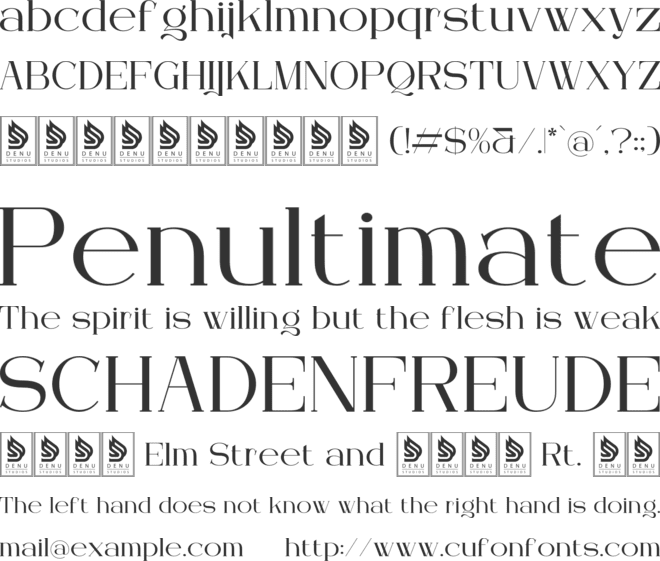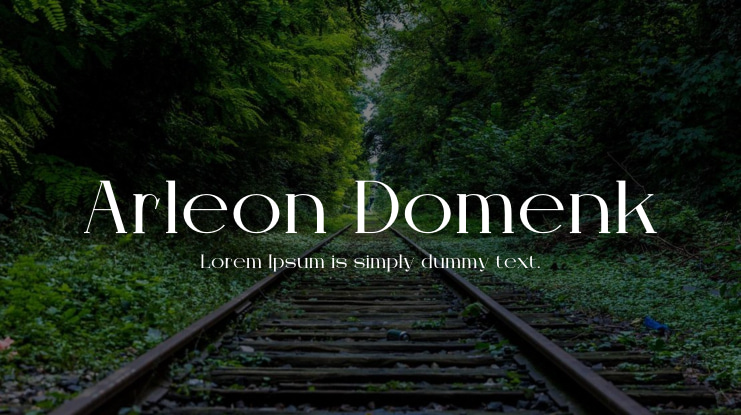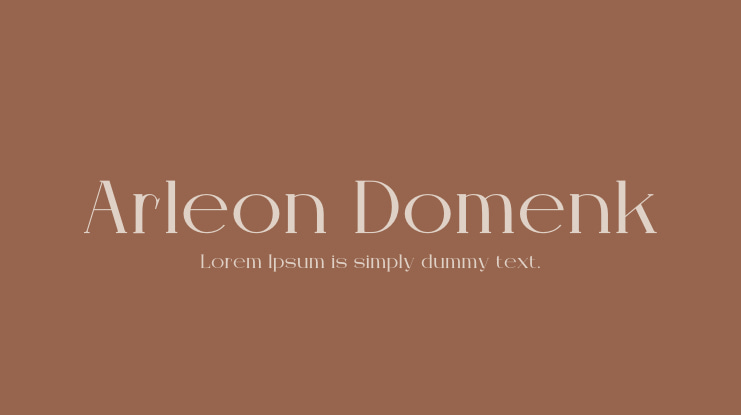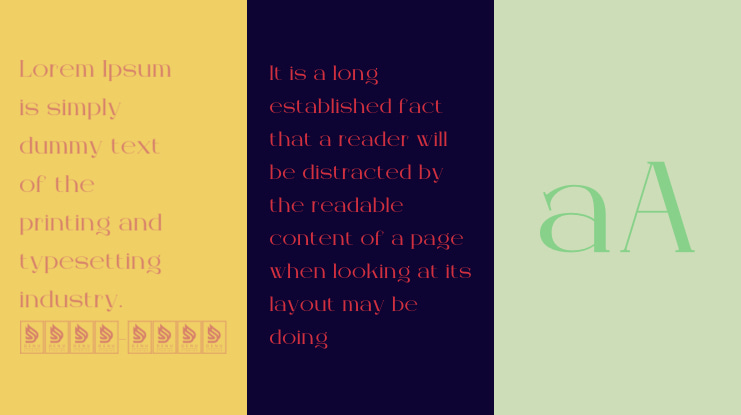
Arleon Domenk Font
**Arleon Domenk | Display Elegant Serif** is an ideal choice for various projects, including logos, branding projects, homeware designs, product packaging, mugs, quotes, posters, shopping bags, t-shirts, book covers, name cards, invitation cards, greeting cards, labels, photography, watermarks, special events, and any other creative project that requires an elegant serif touch.